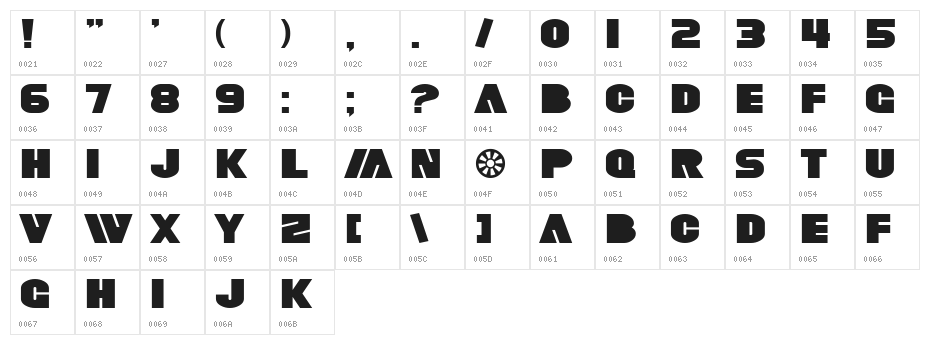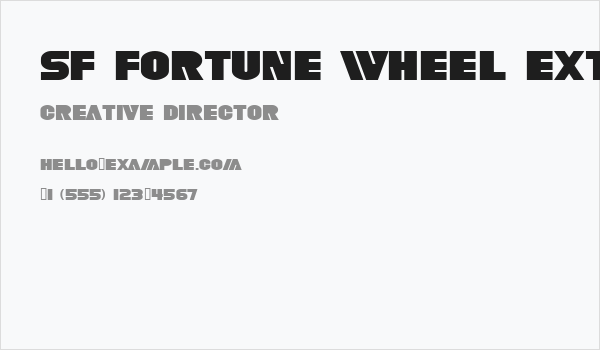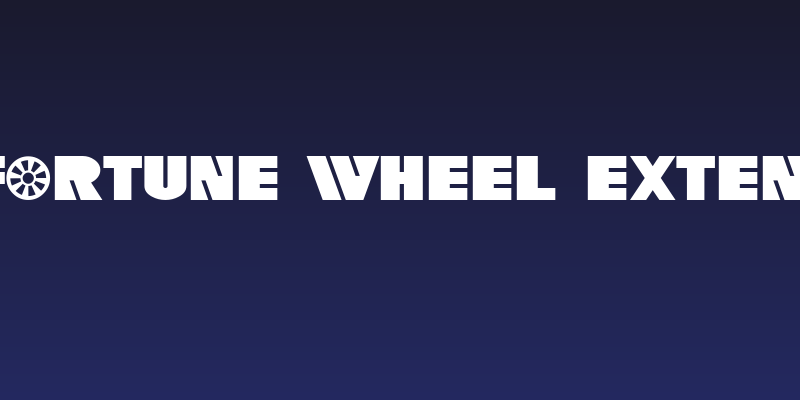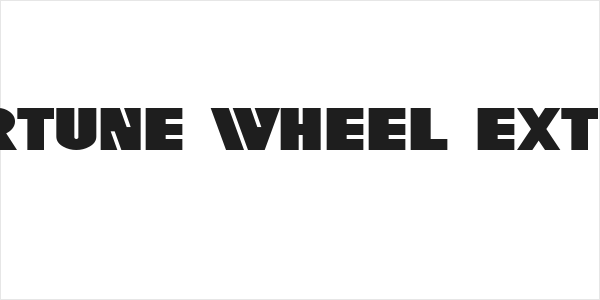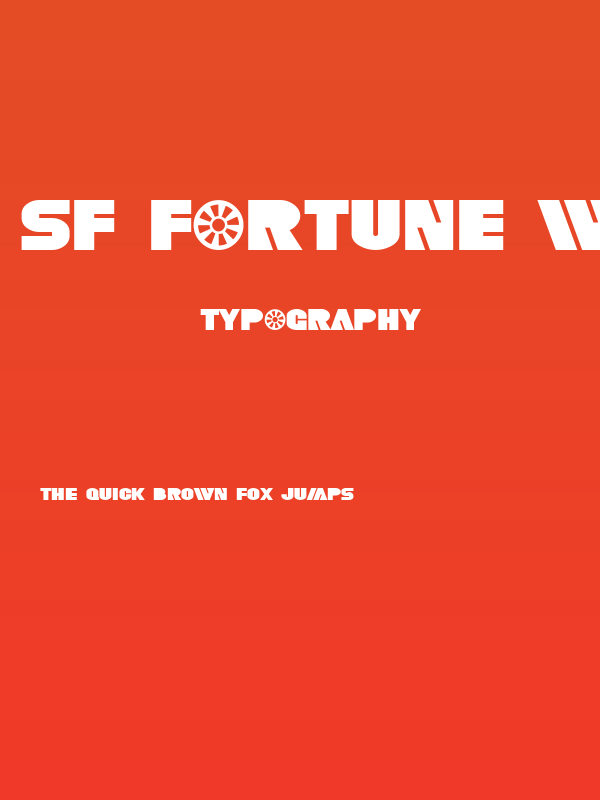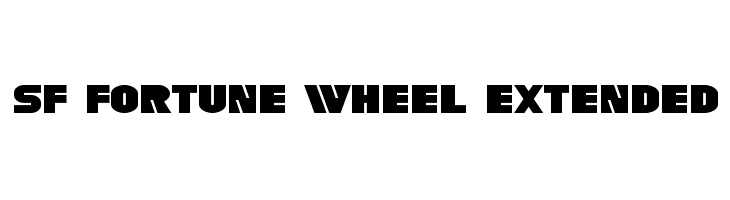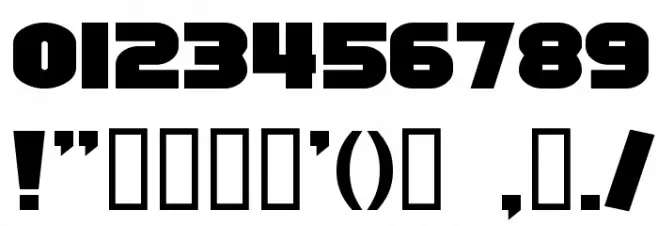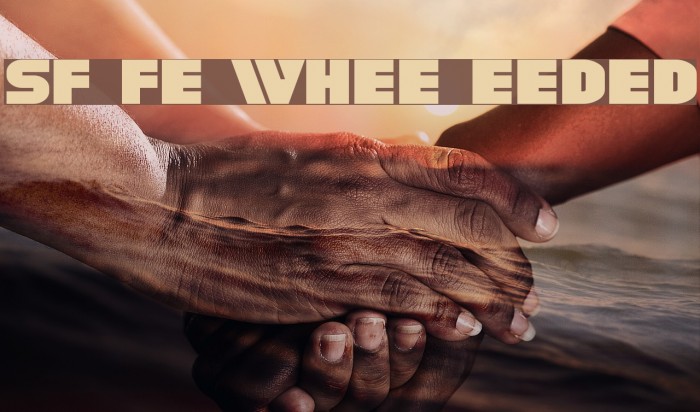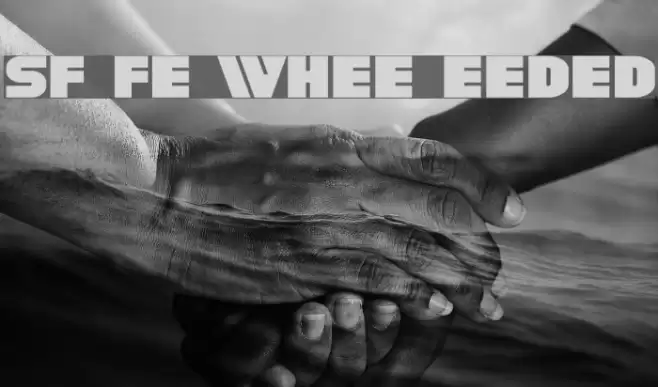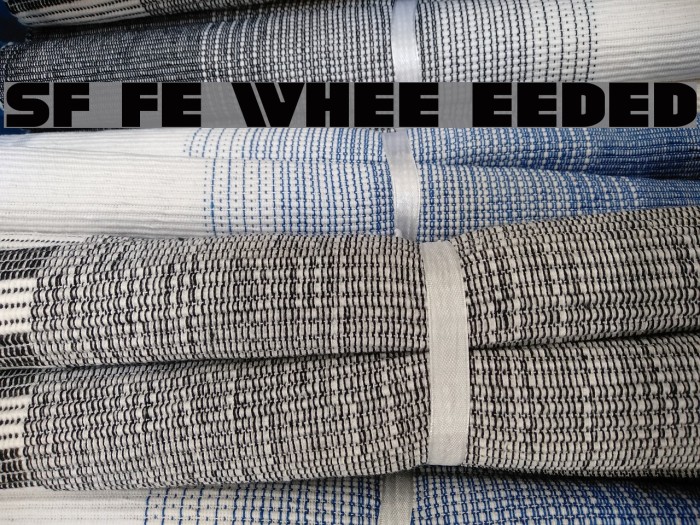
SF Fortune Wheel Extended Font
| Largeur | Expanded |
| Style général | Modern, Futuristic |
| Projets proposés | Ideal for posters, logos, video game graphics, and any project needing a bold, futuristic look. |